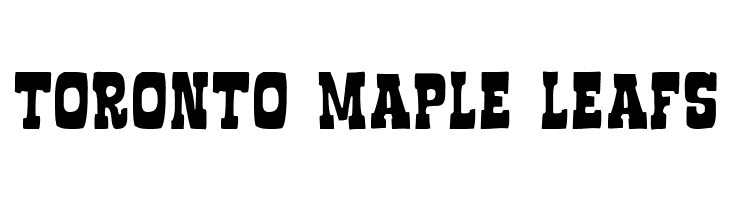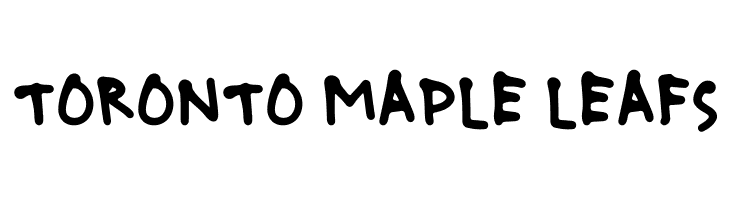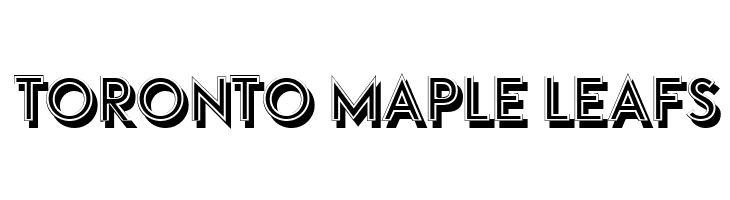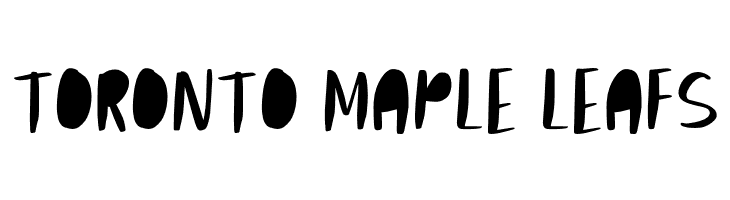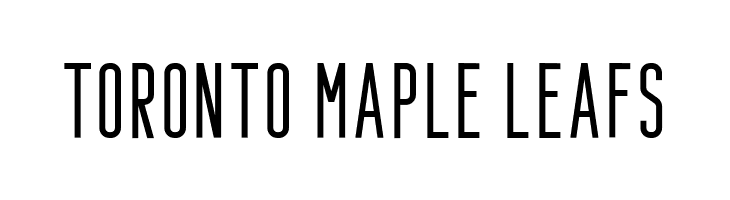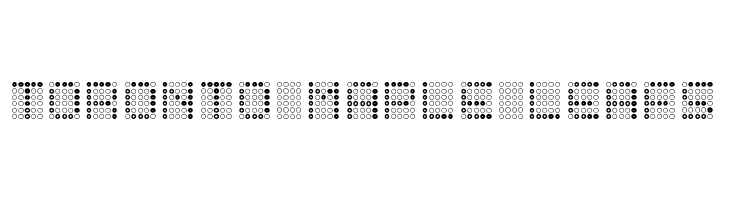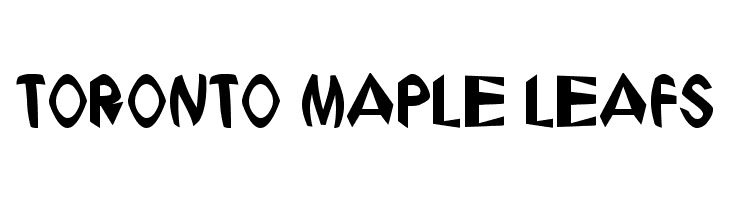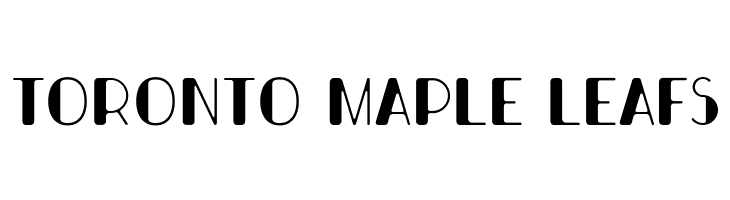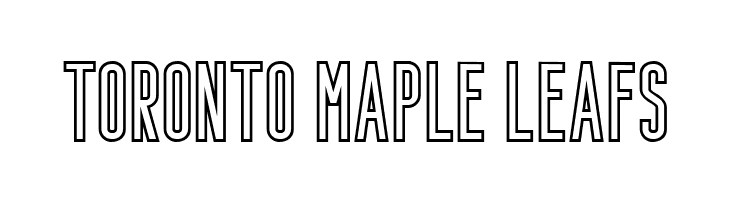
A bold, geometric font with playful and artistic character shapes.
A bold, blocky font with a vintage yet modern appeal.
A playful, hand-drawn font with bold, rounded letters and a whimsical style.
A decorative font made of circular patterns forming each character.
A bold, three-dimensional font with geometric structure and shadow effects.
A bold, modern font with geometric and rounded elements.
A bold, playful handwritten font with dynamic strokes and a casual style.
A bold, outlined uppercase font with a modern, geometric style.
A modern, sleek font with tall, narrow characters and consistent stroke width.
A tall, narrow, and modern font with clean lines and uniform stroke width.